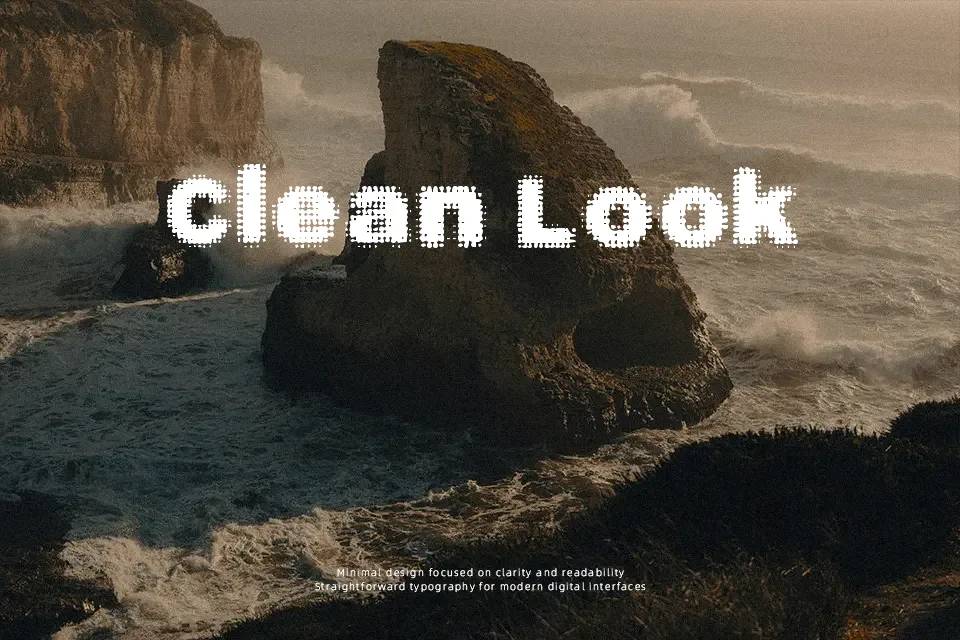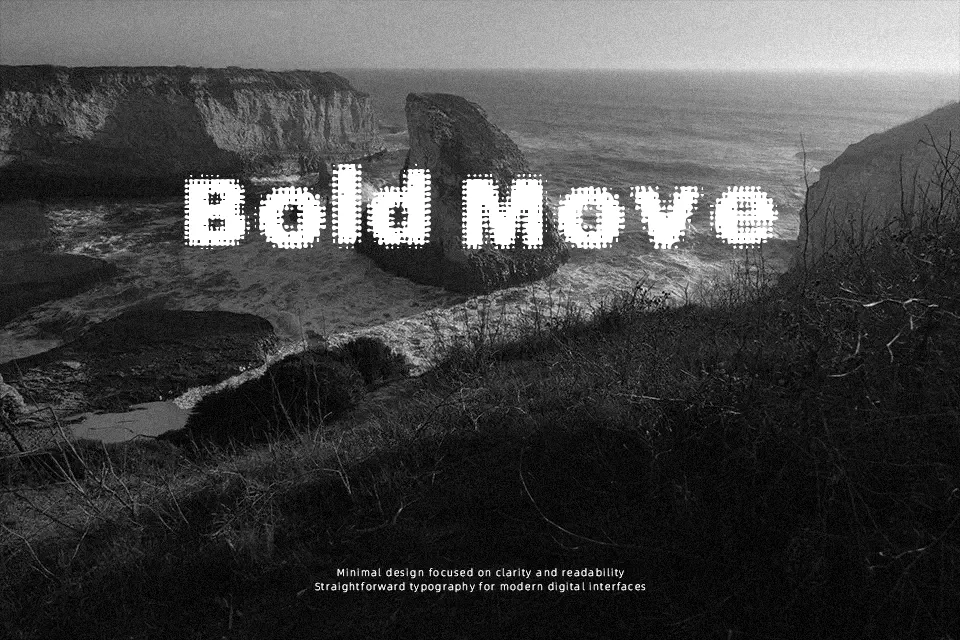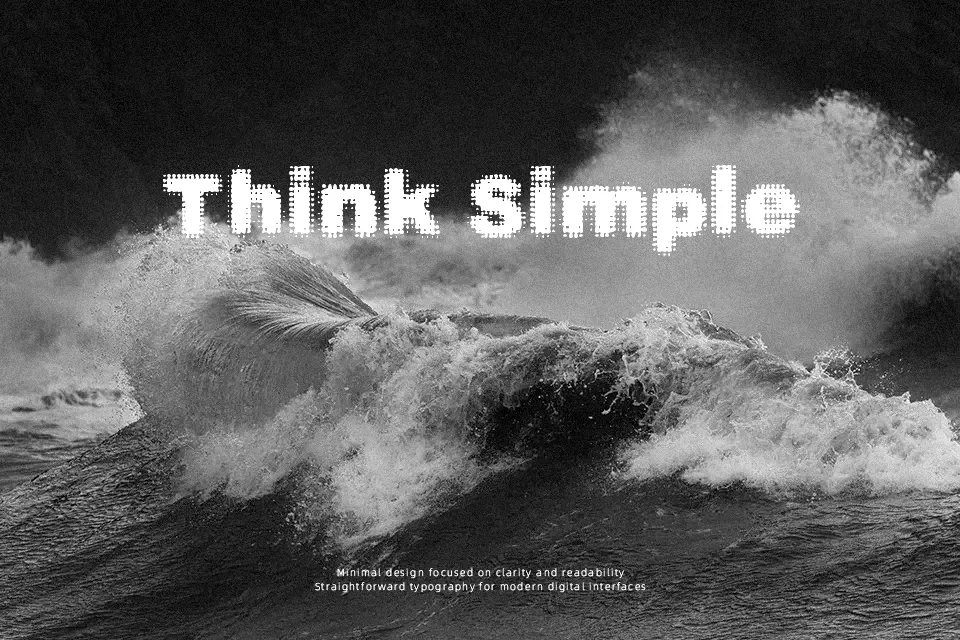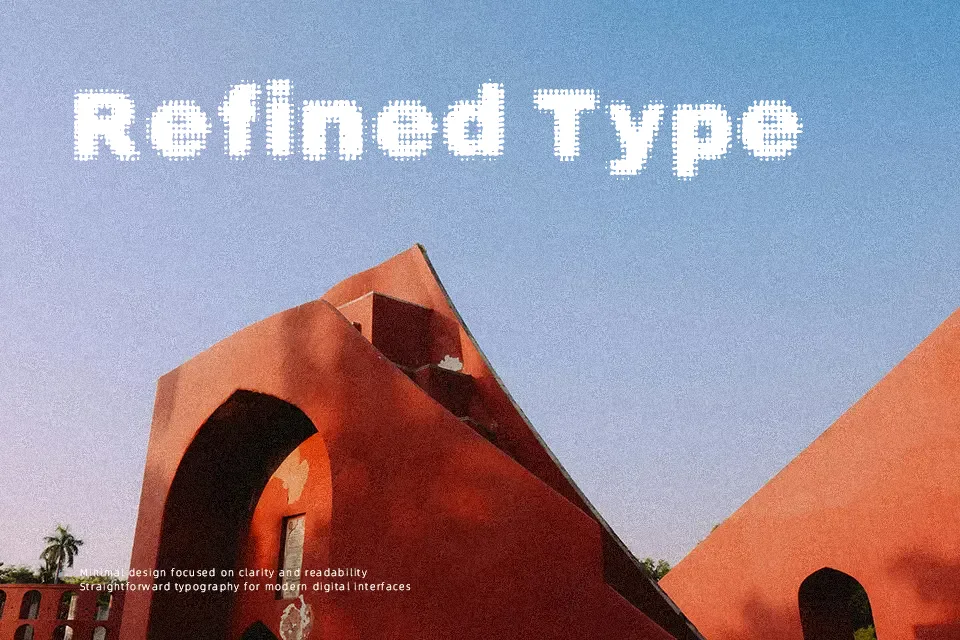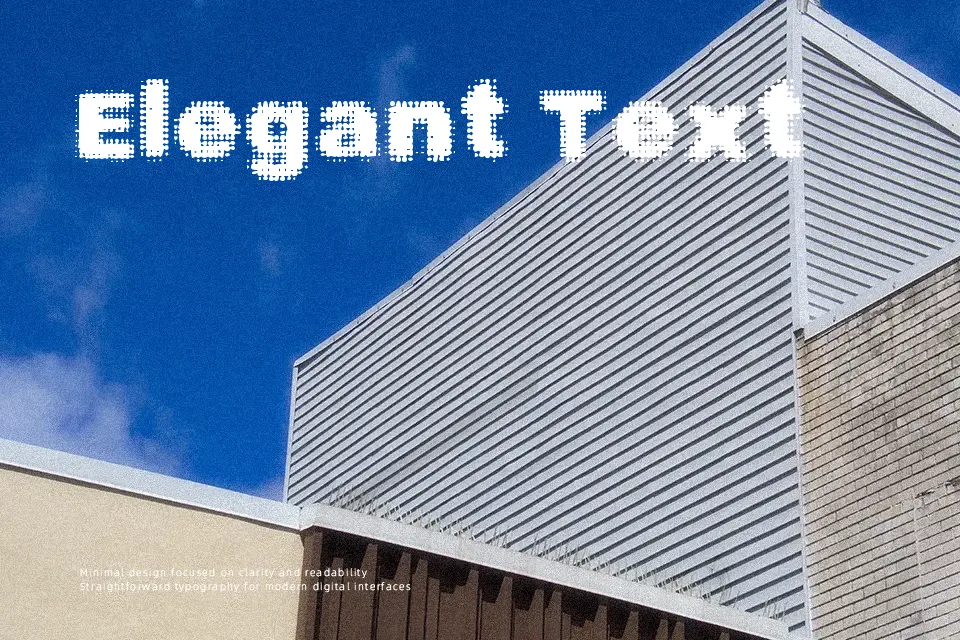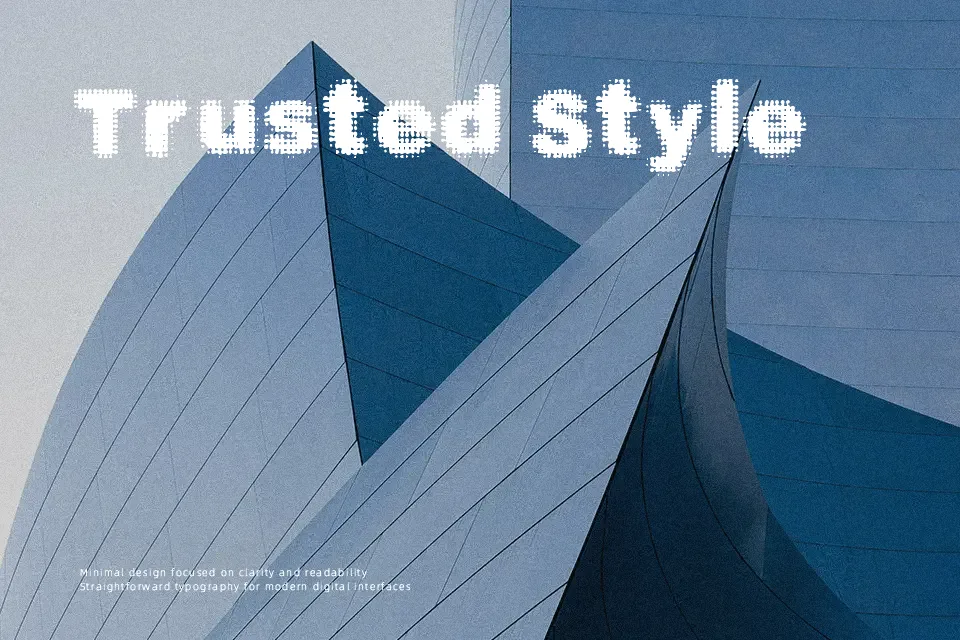
Simple Myopia Font
Simple Myopia Font features an unconventional visual structure built around scattered, pixelated particles that dissolve the outer contours of each glyph. The underlying letterforms maintain basic sans serif proportions, but heavy digital noise and uneven stroke edges create an intense visual vibration across the line. Spacing appears intentionally loose to prevent the dispersed dot clusters from colliding during composition. While the typeface delivers immediate impact in large display headlines, festival flyers, and album artwork, fine decorative scatter rapidly degrades legibility at modest scales. For extended editorial passages or functional body text, these chaotic silhouettes cause severe eye fatigue.
Best For: electronic music festival posters, dystopian video game titles, streetwear apparel graphics, experimental album covers
Not Ideal For: continuous paragraph reading, mobile application interface text, small product labeling, formal corporate documents
Perfect for gaming, headline, and music, with a creative and decorative style.